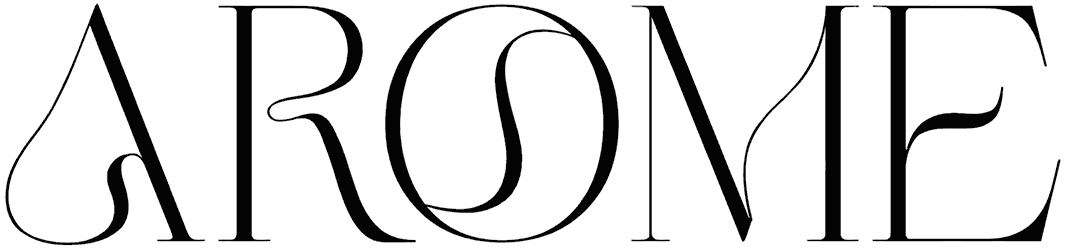
The Hashira MT is a stunning font with an elegant design. This luxury serif font has a luxury style, and you can use it for various cases such as magazines, postcards, and logos. The Hashira MT’s letters have thin tails and a curve in their end face that makes it striking for anything calling for a superfluity touch.